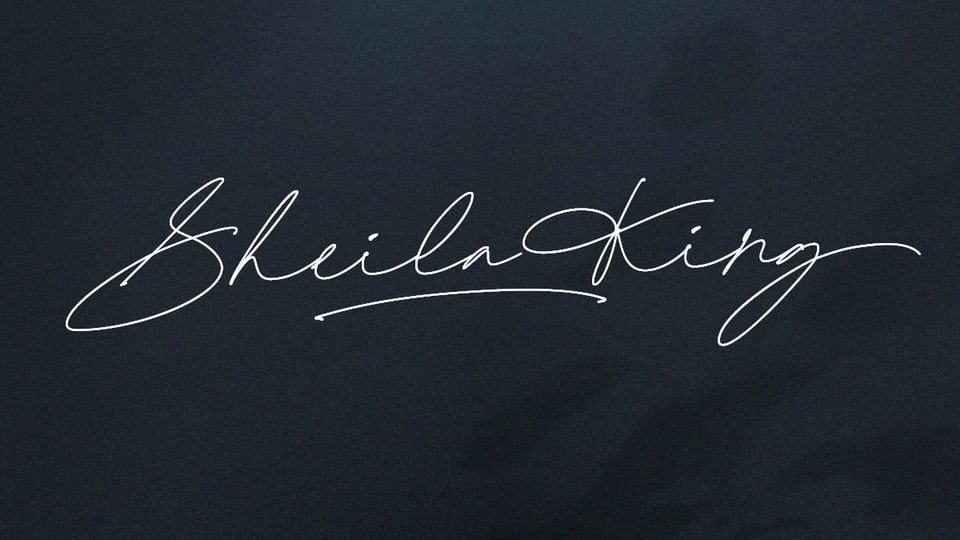
Download Shelia King font, a beautiful signature script based on manual handwriting. Elegant and flowing strokes make Shelia King font looks a real handwriting.